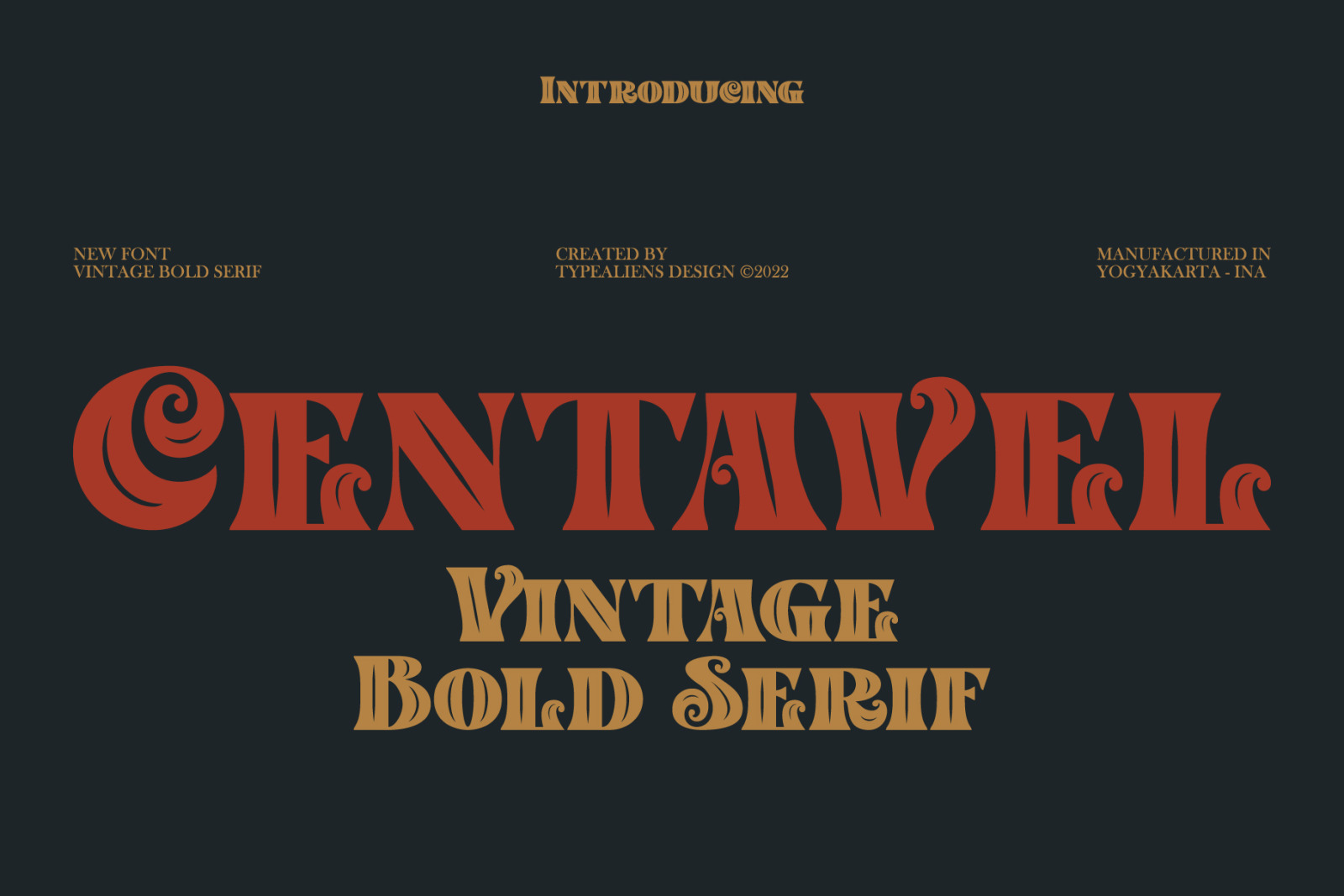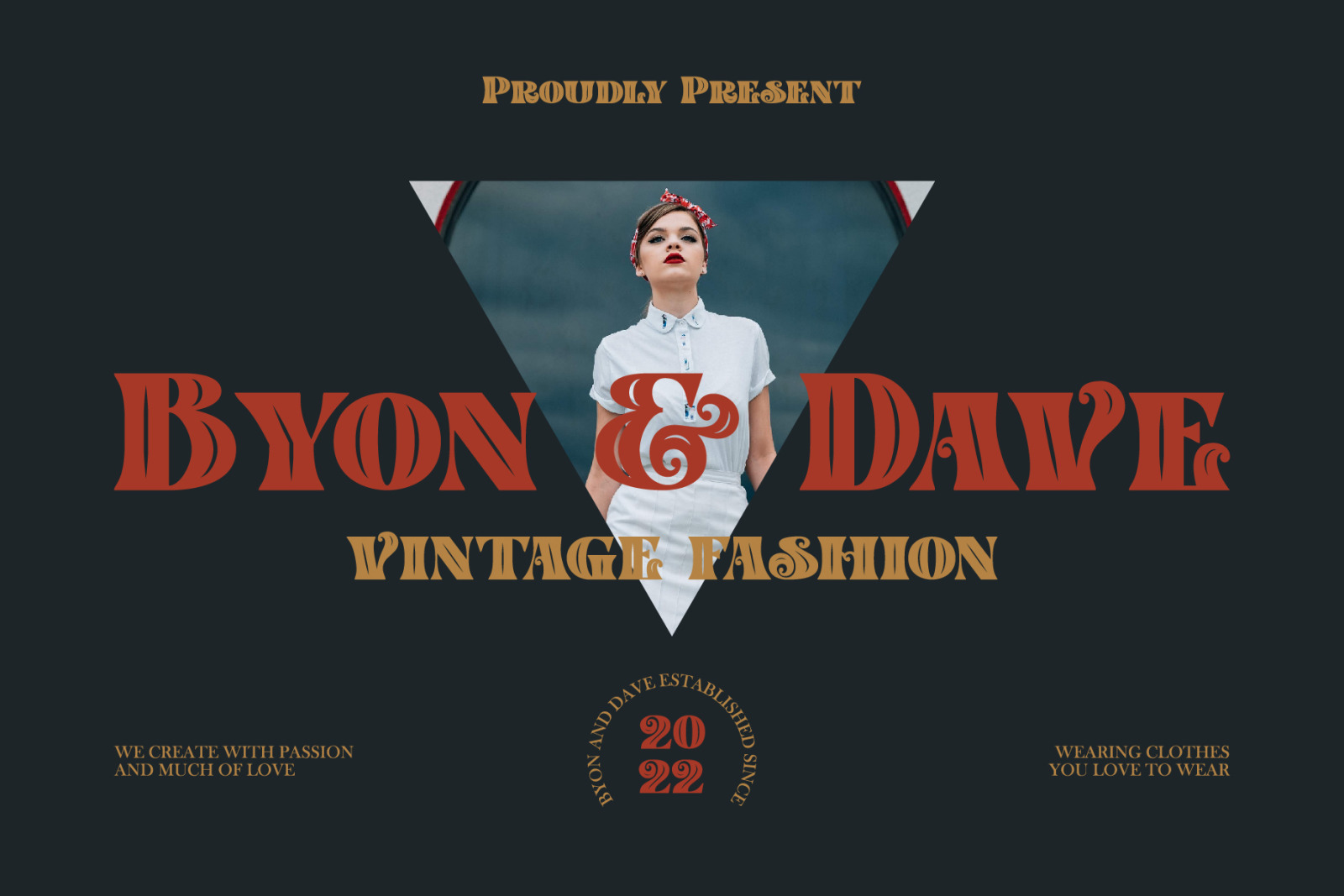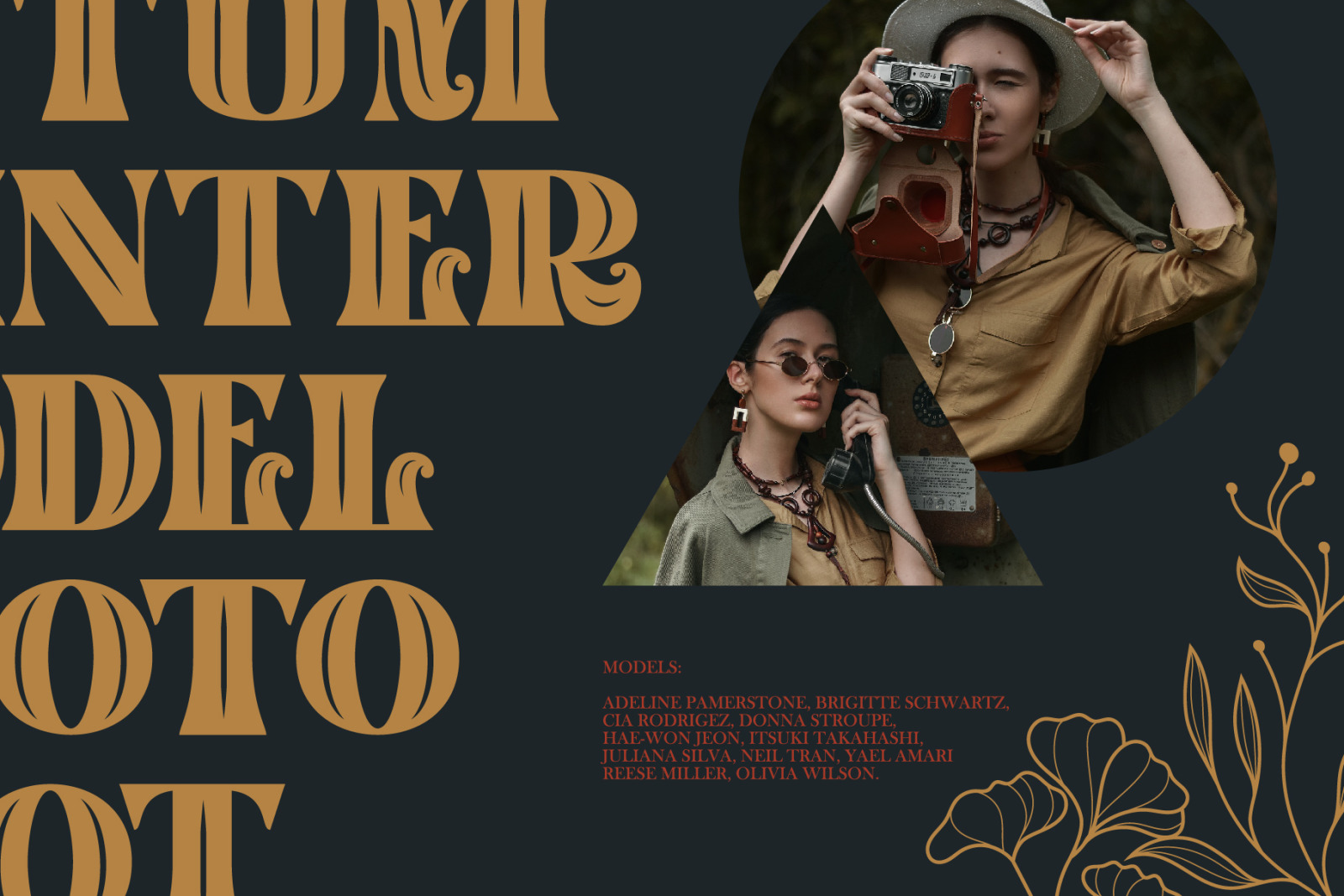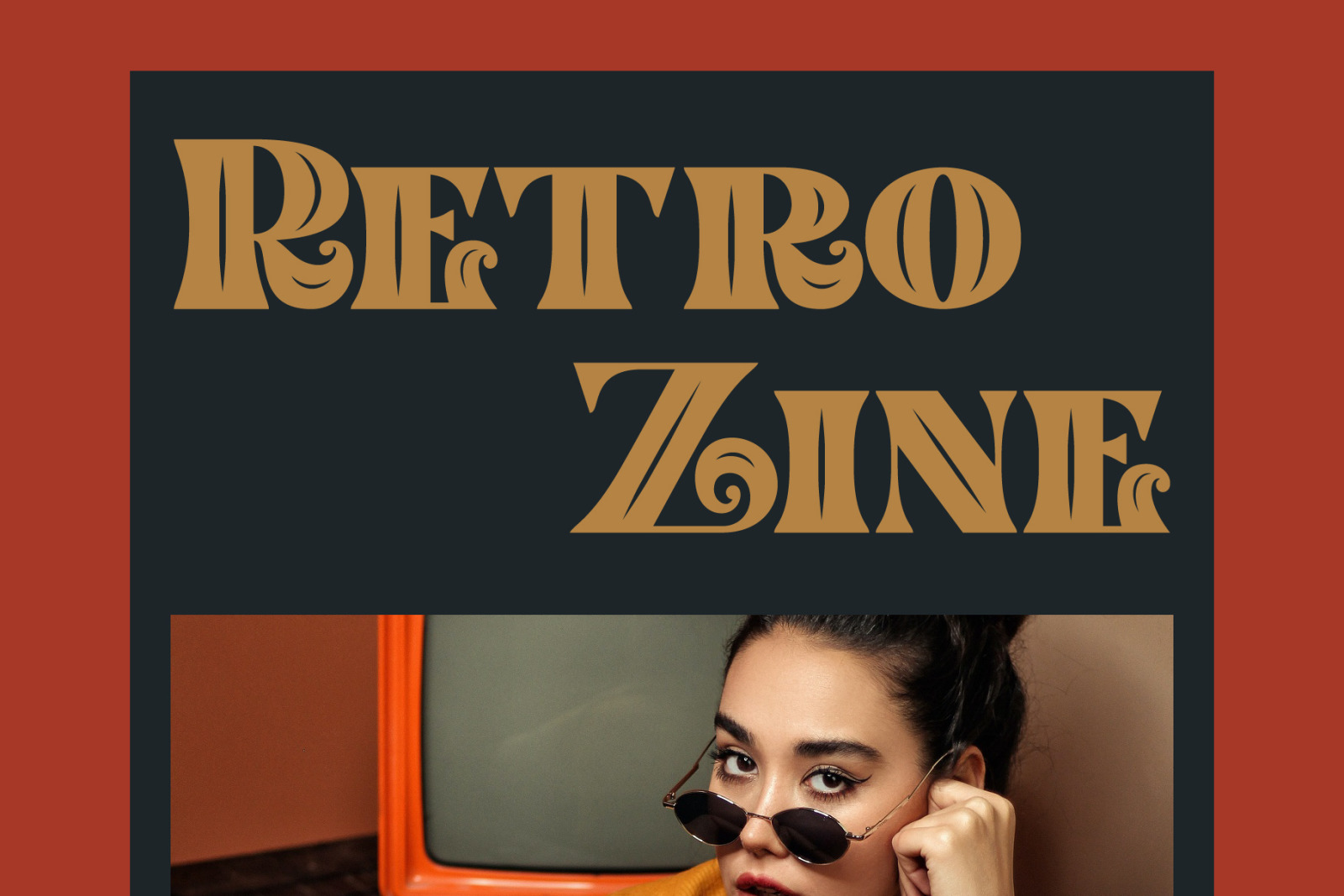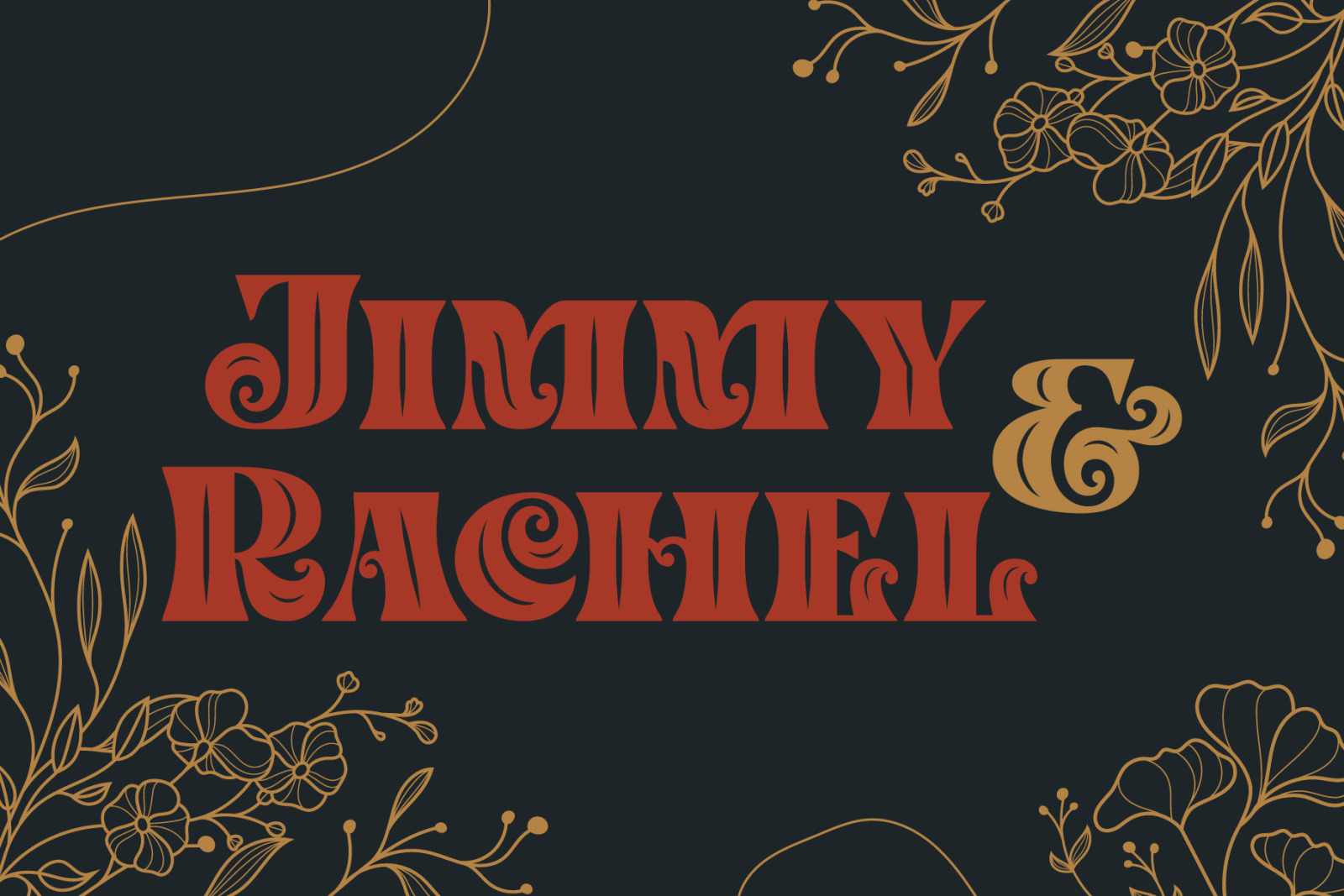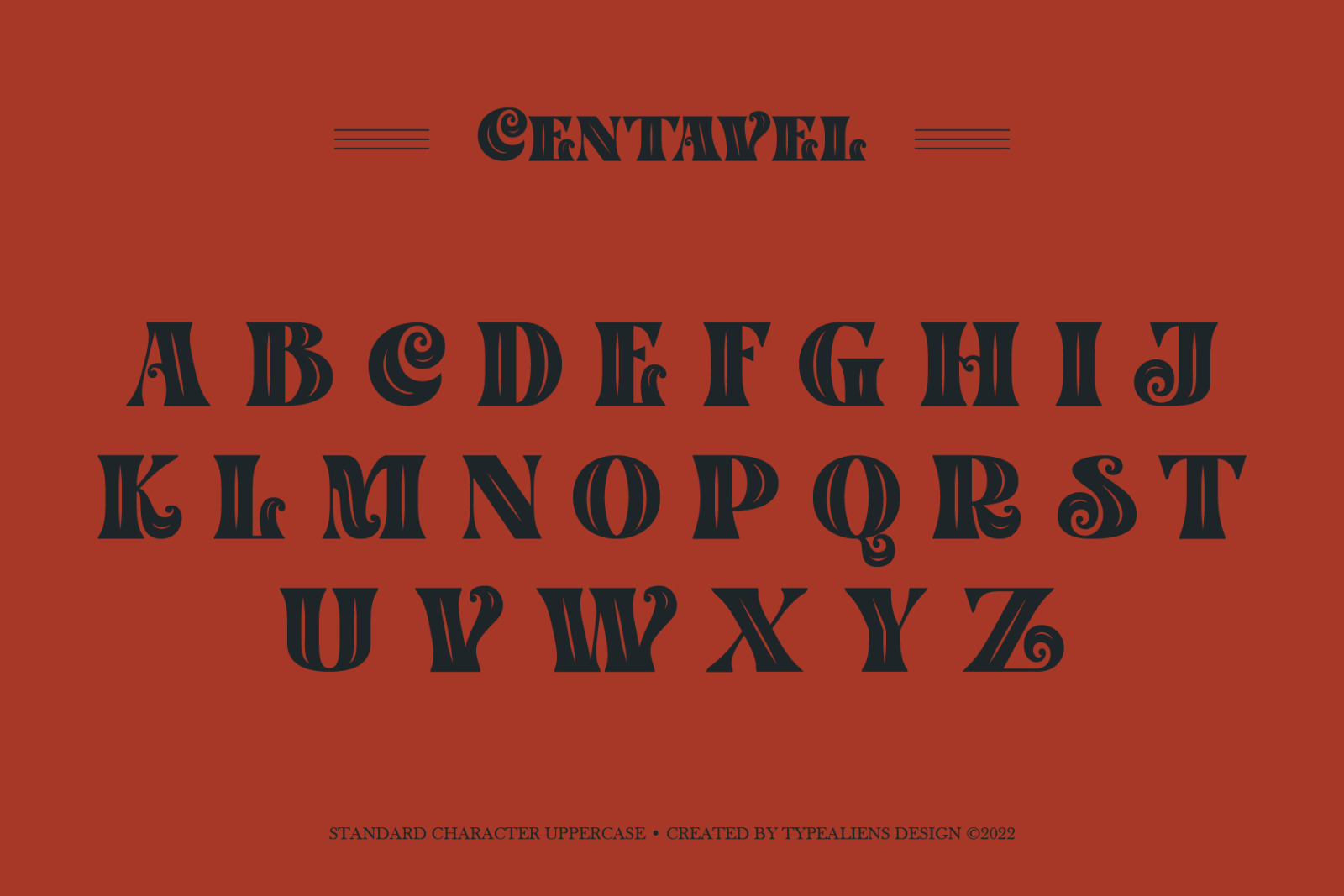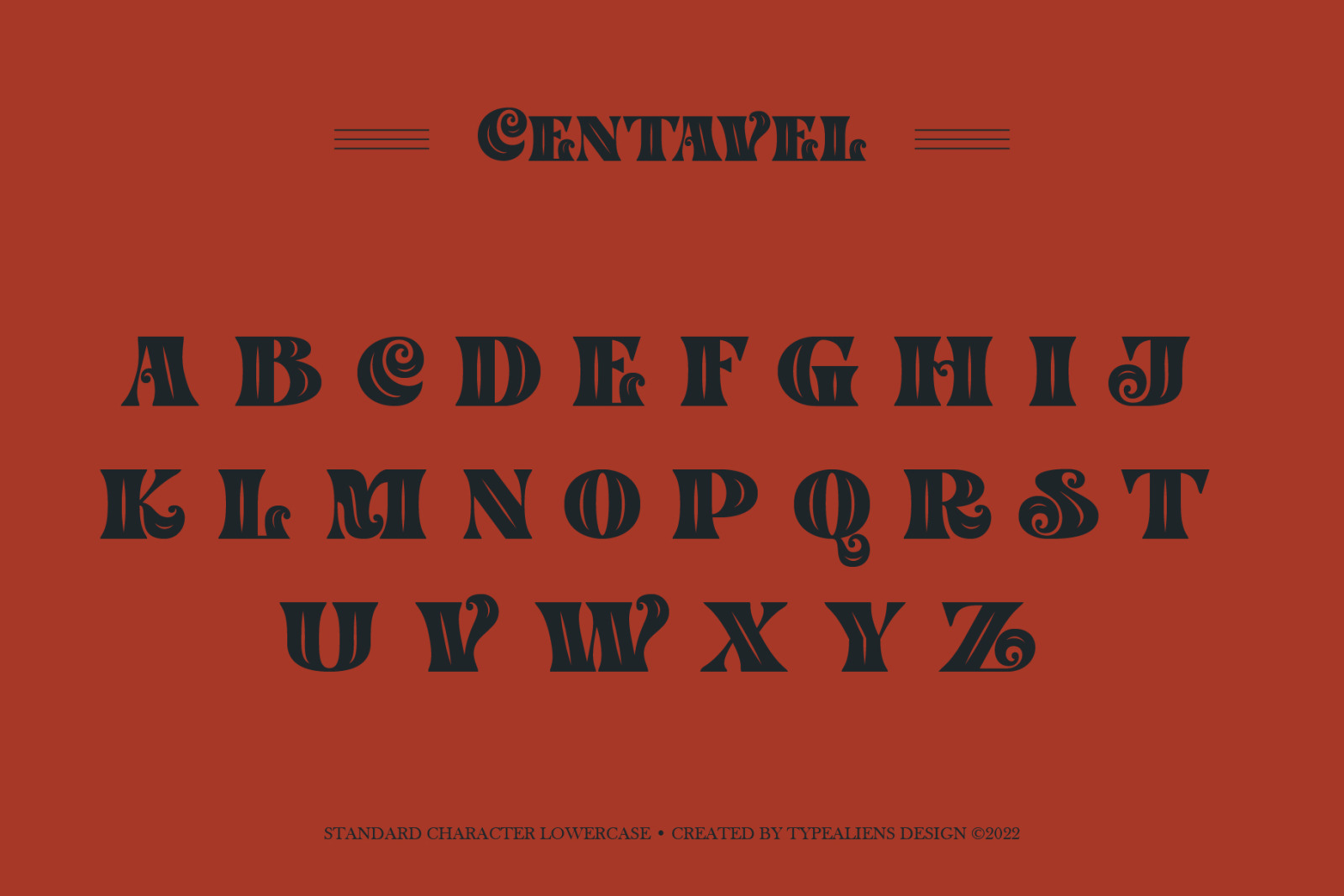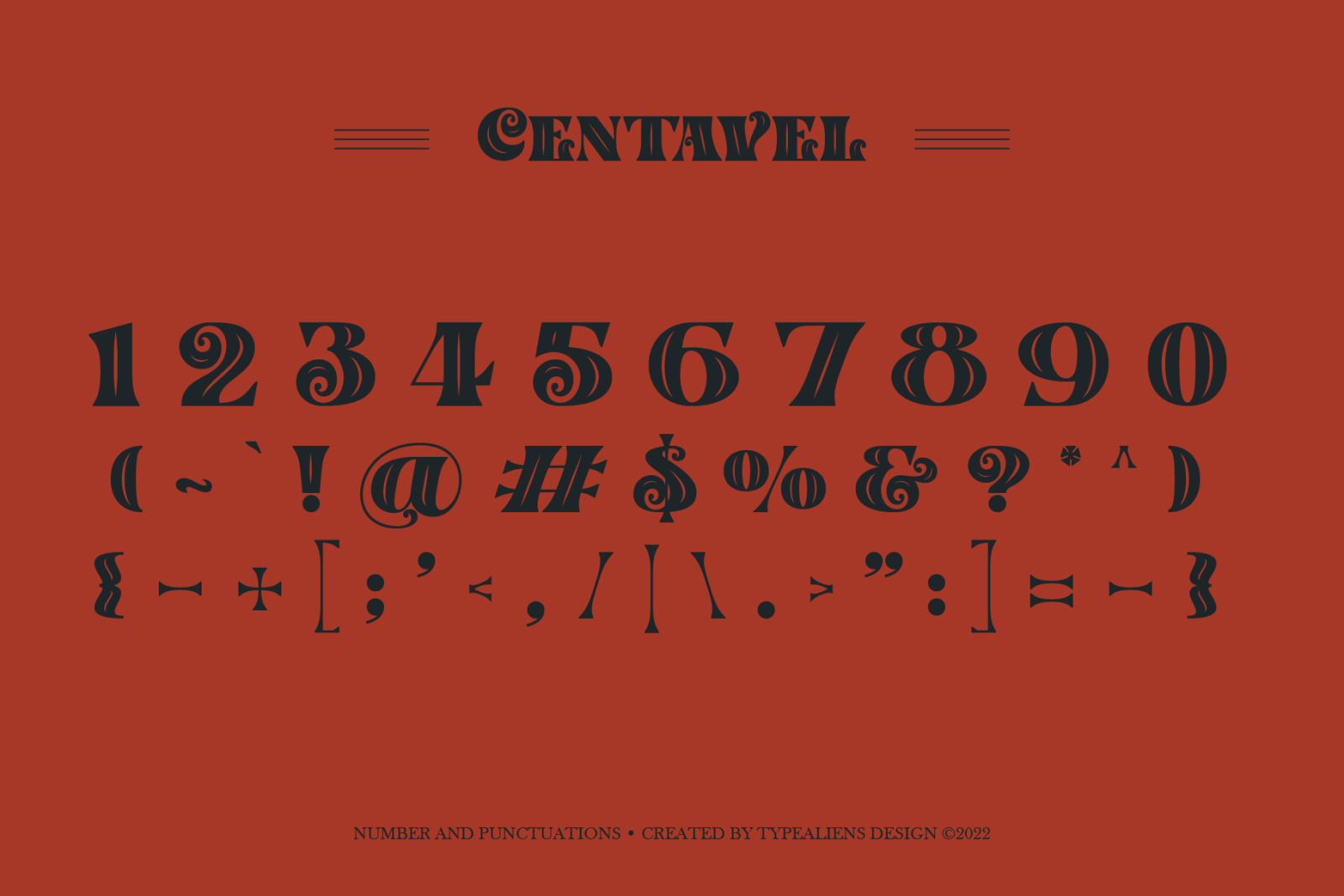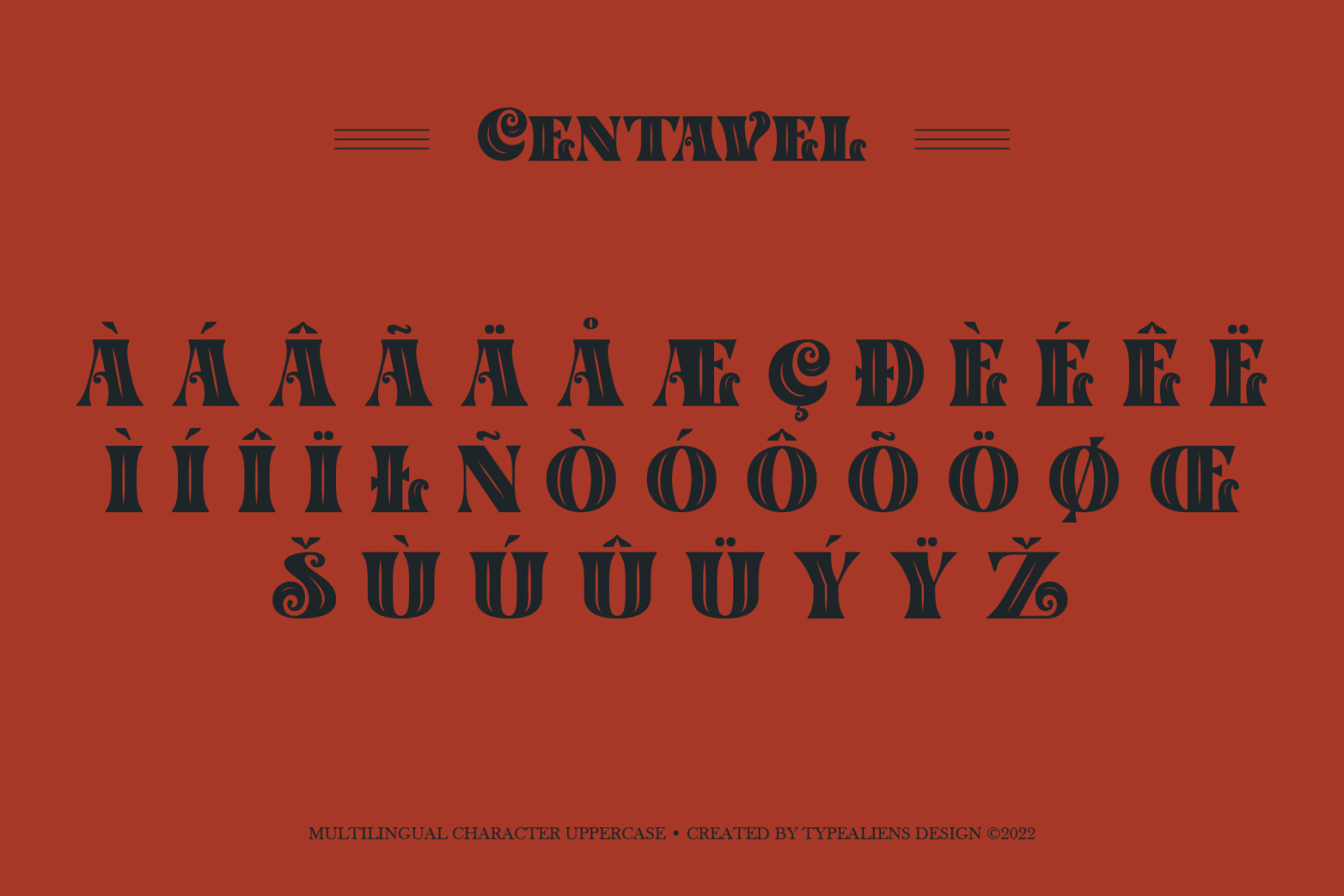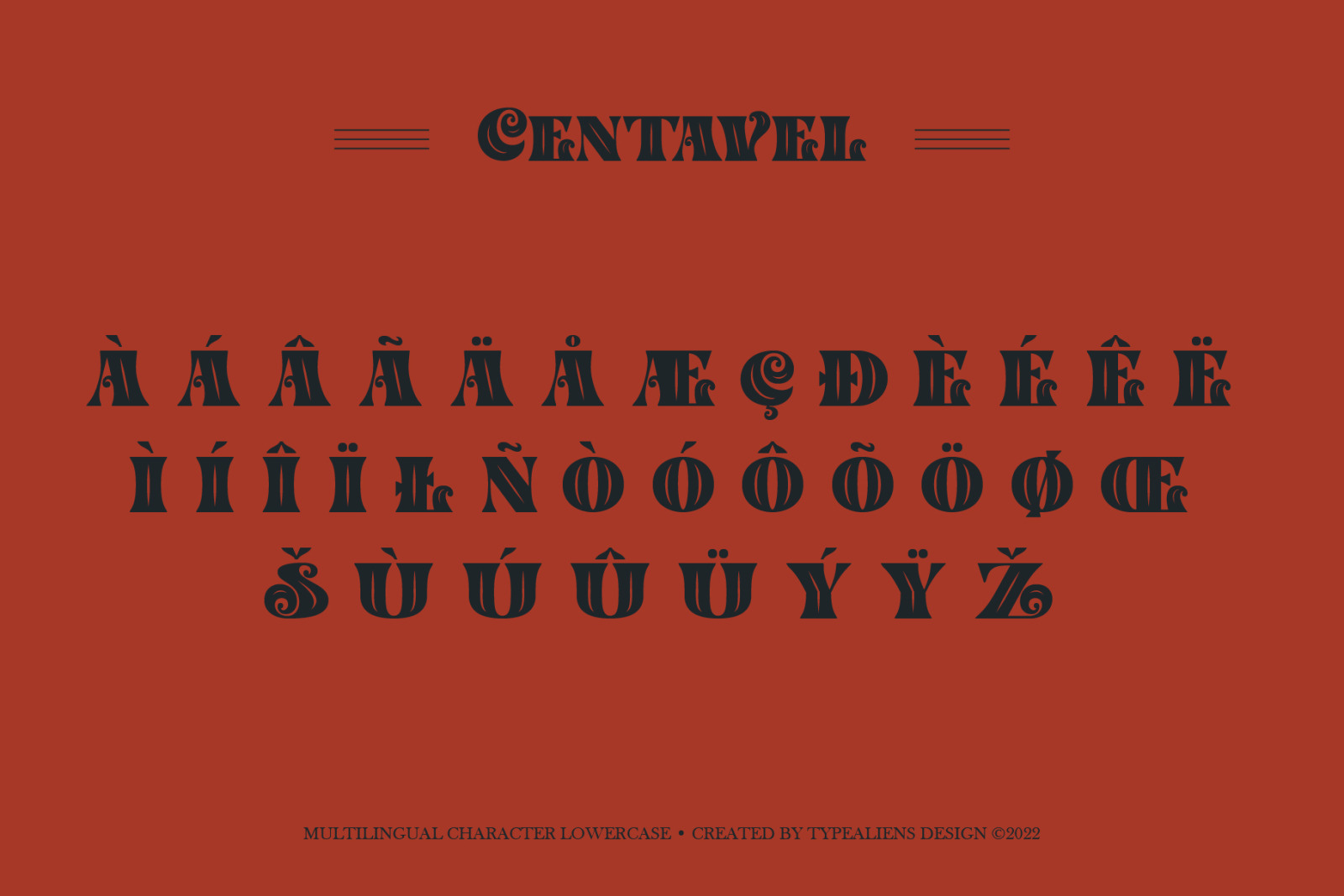
Centavel Font
CENTAVEL is a vintage bold serif typeface, with a strong and unique character, the center of the letter has a cavity to add to the vintage impression. This font is perfect for headlines or titles.
This font is an all caps font.